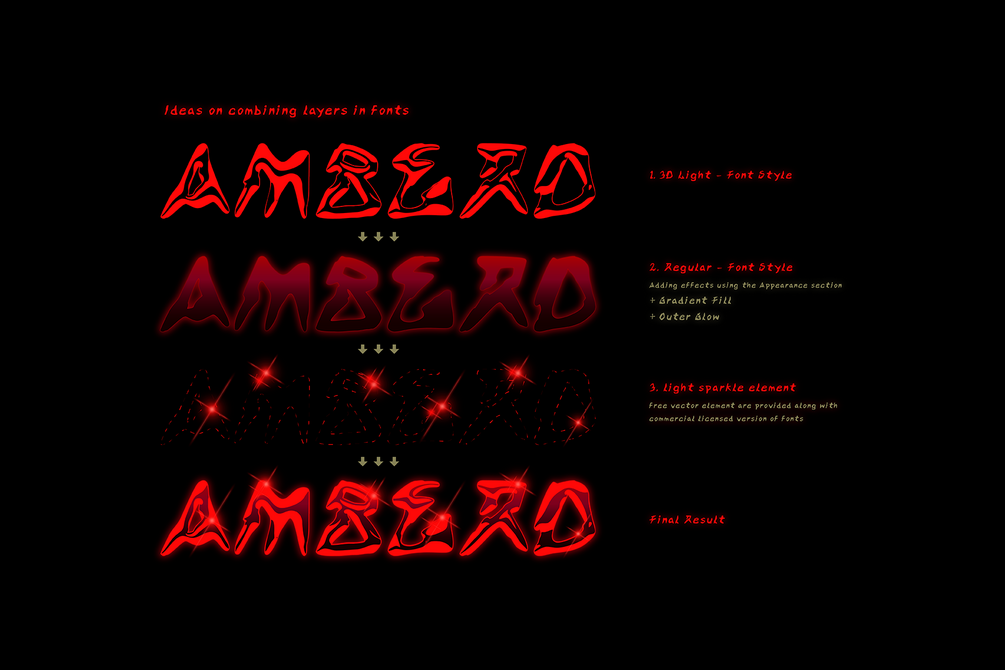
AMBERD | 3D Stone Layered Font
Amberd Typeface is a striking display font inspired by red amber, featuring a hand-drawn, raw style. It includes three distinct styles: Regular, 3D Light, and 3D Shadow, enhancing the mysterious allure.
This layered font allows creative combinations for versatile designs. It offers a complete set of uppercase and lowercase letters, numbers, punctuation, and multilingual support, adhering to ISO Latin 1 standards, making it ideal for projects that evoke the enchanting yet ominous beauty of amber.